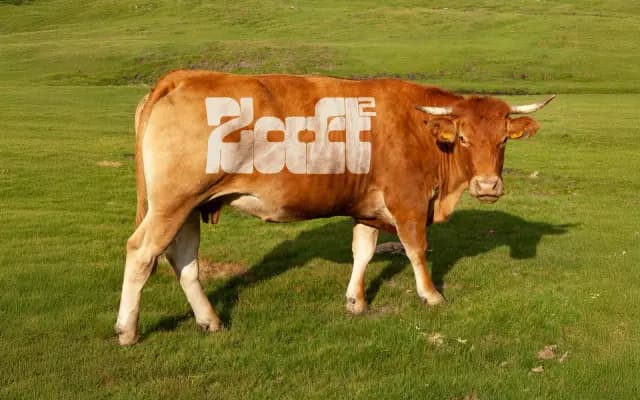
Zaft²
A variable French Clarendon revival by Jacob Wise and Céline Hurka that channels 19th-century advertising type through a Wild West pastiche with contemporary variable font controls.
Built on the geometric foundations of its predecessor Zaft, this display slab takes its cues from the French Clarendon tradition that became synonymous with the American frontier. Compact, rigid forms are softened by rounded corners, and contextual alternatives tighten letter-fit across the family. Three distinct variable axes allow independent control over weight distribution and serif width, each available as a variable TTF alongside six static OTF files.
A bold display slab in the French Clarendon tradition, with exaggerated thick-thin contrast and heavy serifs rooted in 19th-century advertising type. Its geometric grid construction and Wild West pastiche place it firmly in the display category.